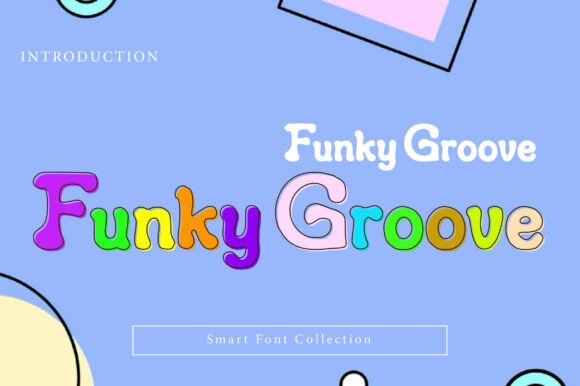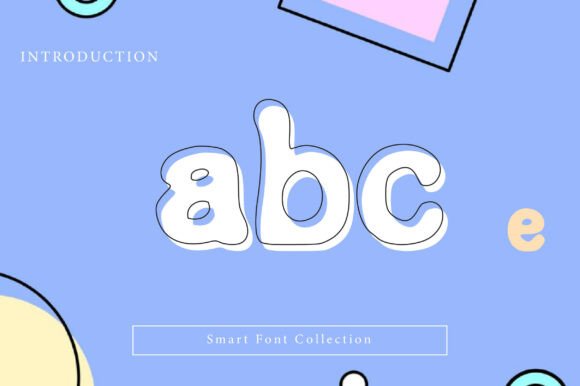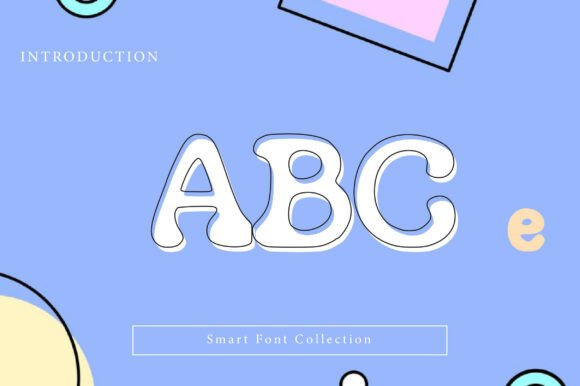
Get Ready to Groove: Unlocking the Power of Funky Design
Have you ever stumbled upon an old vinyl record or a vintage poster that instantly transports you back to a bygone era of funk, love, and peace? That’s the magic of retro design, and it’s exactly what inspired the creation of the Funky Groove Font – a bold and playful retro display font that captures the essence of classic 70s typography.
With its chunky rounded letterforms and smooth curves, the Funky Groove Font is the perfect addition to any designer’s toolkit. Whether you’re working on a retro branding project, creating eye-catching social media graphics, or designing bold album covers, this font adds instant nostalgia and fun energy to your typography. For designers, the Funky Groove Font is a valuable resource for adding a touch of vintage flair to their projects.
Funky Groove Font Key Features
- Character Set: The font includes a comprehensive character set, covering Latin, Cyrillic, and Greek alphabets, as well as various symbols and punctuation marks.
- Font Size and Resolution: Funky Groove Font is designed to be scalable, making it suitable for use in various font sizes, from 8 points to 72 points. It is optimized for 300 DPI (dots per inch) resolution, ensuring crisp and clear display on high-resolution screens.
- Unique Characteristics: Funky Groove Font is known for its distinctive, energetic feel, with bold lines, rounded shapes, and a vibrant color palette. Its unique design makes it perfect for use in music, entertainment, and lifestyle branding.
- Font Weight and Style: The font includes multiple weights and styles, including Light, Regular, Bold, and Italic, allowing users to customize the look and feel of their text to suit their needs.
Funky Groove Font Review
I recently had the chance to work with the Funky Groove Font, and overall, I’m quite impressed. ✨ The font has a unique, energetic vibe that’s perfect for projects that need a bit of flair. The bold, playful style works particularly well for titles, headings, and other text elements where you want to grab the user’s attention.
- Highly customizable: The Funky Groove Font comes with a range of styles, from regular to bold, and even a few specialty options like italic and script. This gives designers a lot of flexibility when it comes to choosing the right look for their project.
- Great for creative projects: The font’s quirky, fun style makes it a great choice for projects like posters, flyers, and social media graphics.
That being said, there are a few limitations to consider. ⚠️ The font may not be the best choice for more formal or professional projects, as it can come across as a bit too playful. Additionally, some of the specialty styles may not be as legible at smaller font sizes, which can make them difficult to read.
Overall, I think the Funky Groove Font is a great addition to any designer’s toolkit. While it may not be suitable for every project, it’s a versatile font that can add a lot of personality to your work. With a little bit of care and consideration, it can be a real showstopper.
Funky Groove Font: A Practical Application Guide
Tips for Getting the Most Out of Funky Groove Font
Use Funky Groove Font to add a touch of fun and playfulness to your designs. It pairs well with bright colors and bold graphics. Experiment with different font sizes and styles to create visual interest.
Funky Groove Font is ideal for use in social media graphics, party invitations, and music-related designs. It’s also a great choice for adding a fun touch to business presentations and marketing materials.
Q: What is the recommended font size and line height for using the Funky Groove Font?
The recommended font size for the Funky Groove Font is between 12-24 points, depending on the application and desired level of legibility. A line height of 1.2-1.5 times the font size is also recommended to ensure optimal readability and visual flow.